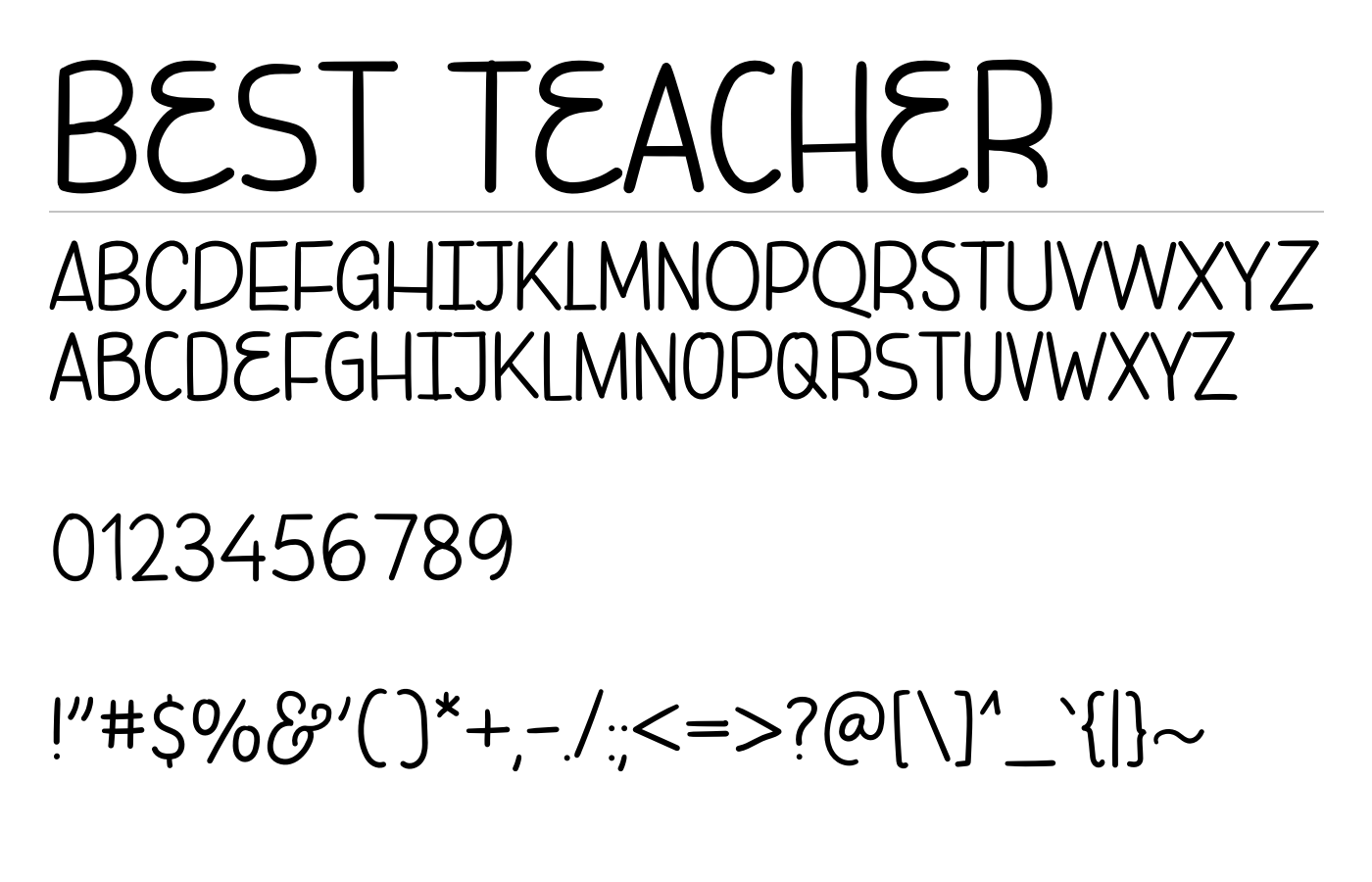
Best Teacher Font is a playful and informal sans serif typeface with a hand-drawn feel, featuring irregular strokes and slightly quirky letterforms that add warmth and personality. Its light weight and tall, narrow proportions make it suitable for friendly, approachable designs like educational materials, children’s books, and casual branding where readability and charm are key. This font works best in headlines, invitations, and creative projects that want to convey a fun yet clear message.
Best Teacher Font
About Best Teacher Font
| Font family | Best Teacher Font |
| Designer | Luthfi Fadhillah |